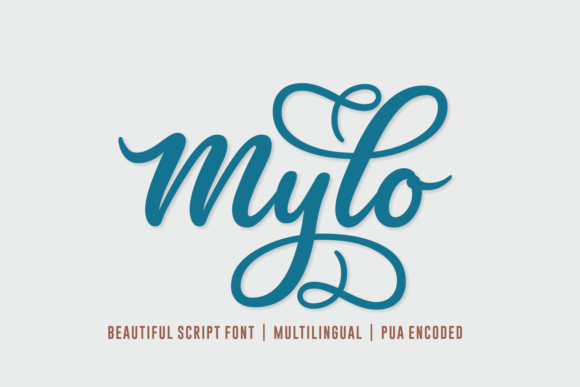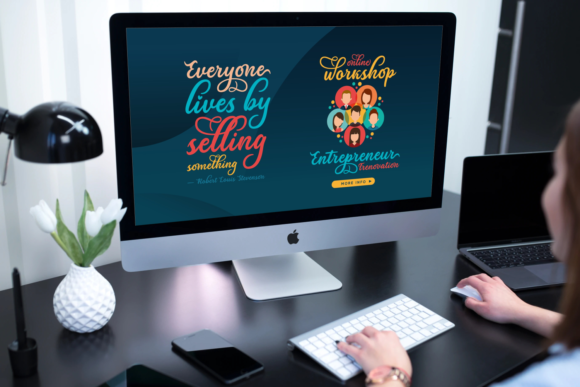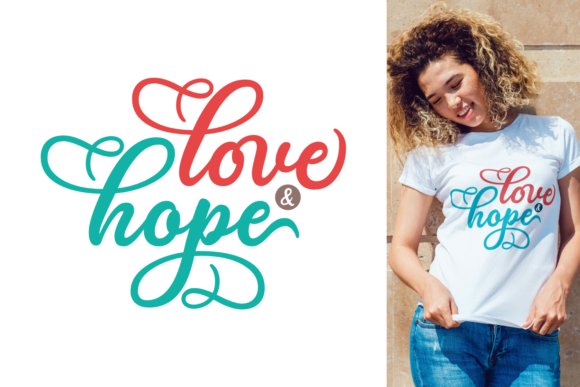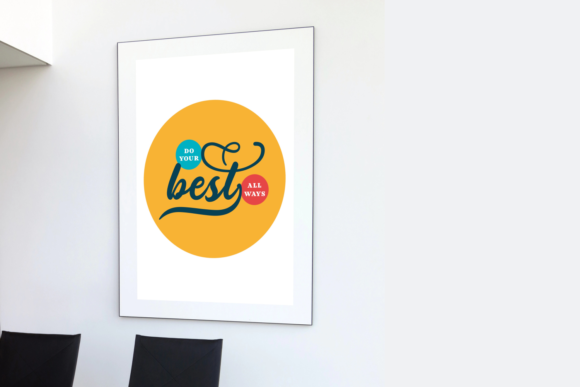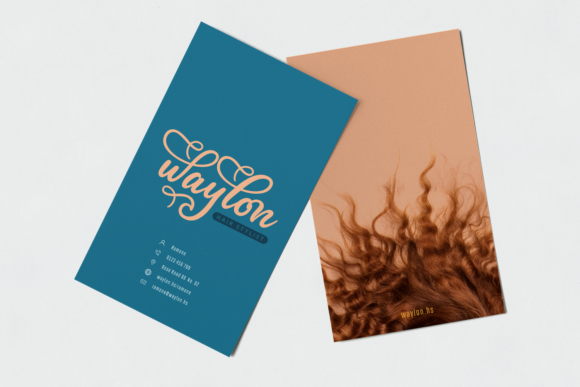
HomeScript FontsMylo Font Script Fonts Mylo Font FacebookXPinterestWhatsApp Mylo Font Poster 2 Mylo Font Poster 3 Mylo Font Poster 4 Mylo Font Poster 5 About Mylo Font Mylo is a friendly and modern script font with a unique style. It will add a romantic touch to any crafting project! DOWNLOAD ON CREATIVE FABRICAThis font is sold and delivered by Creative Fabrica. Font Canyon may earn a commission if you buy through this link. People also explored Maydelyne Beautiful Font Callous Font Lucky Star Font Goodwill Font Bunny Font Sherly Font Bullet Joodles Font Blue Goblet Christmas Ornaments Clay Pottery Font 359 0 TagsMylo Font Previous articleStereotype FontNext articleKaylee Font LEAVE A REPLY Cancel reply Comment: Please enter your comment! Name:* Please enter your name here Email:* You have entered an incorrect email address! Please enter your email address here Website: Save my name, email, and website in this browser for the next time I comment. Personal Use Free First Be Lucky Personal Use Free Read more about this font BD Nokio Personal Use Free Read more about this font Groomer Personal Use Free Read more about this font Comic Caps Personal Use Free Read more about this font BLOG How to Cut Any Font on Cricut: Convert a Font to SVG (Free) Turn any font into a clean SVG so it cuts crisp on Cricut - a quick 3-step workflow using a free font-to-SVG tool. Free vs Paid Fonts: Why Investing in Premium Fonts Is Worth It To increase your work productivity, choose the most readable fonts. Top 10 Handwritten Fonts That Elevate Your Designs